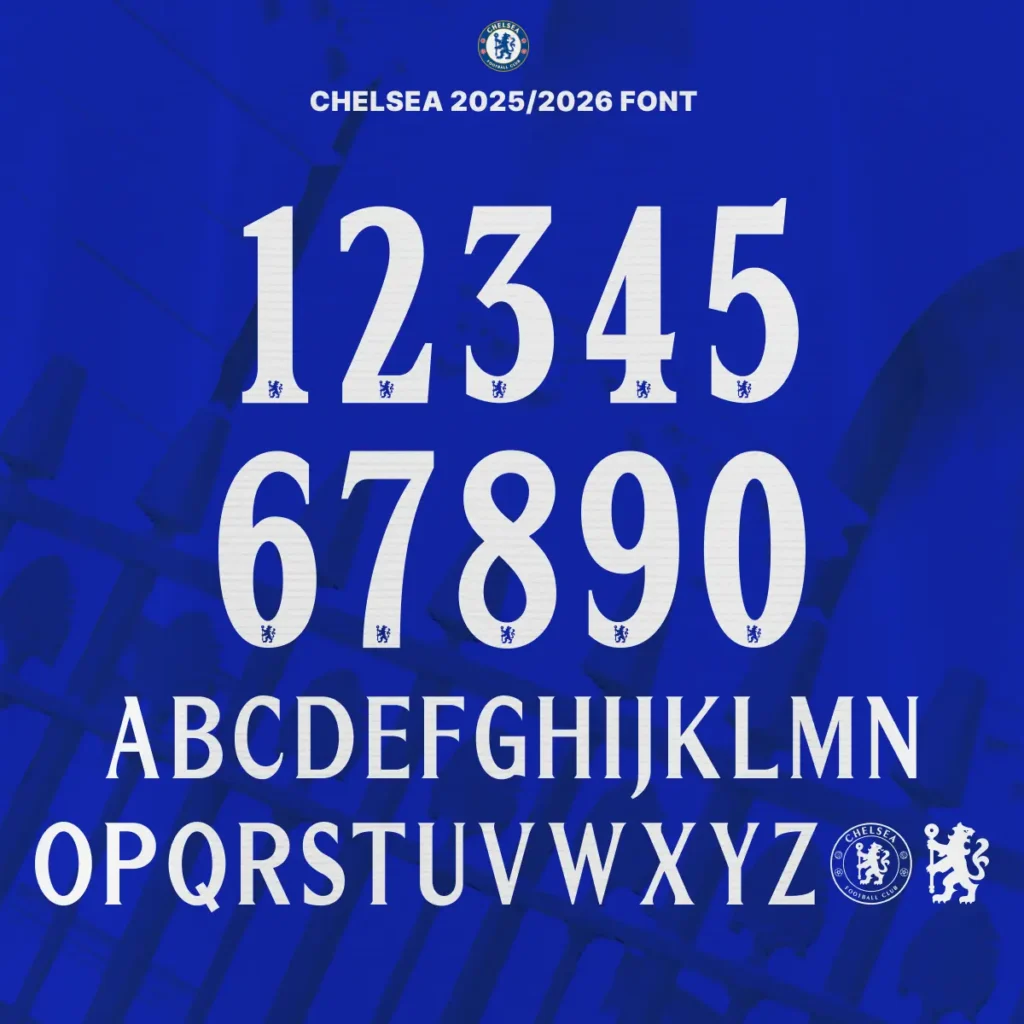
Chelsea Football Club, the reigning FIFA Club World Cup 2025 champion, proudly unveils its official font for the 2025/2026 season. Designed for both performance and aesthetic appeal, this font captures the heritage and strength of the Blues while delivering professional-grade versatility for creators and fans alike.
✨ Key Features of the Chelsea 2025/2026 Font Kit
- Real-World Use by Chelsea:
🏆 Used in the historic final against PSG at the FIFA Club World Cup 2025.
🔁 Use ligatures, kerning, and logo alternates effortlessly.
- Precision Logos Included:
🦁 Get two official Chelsea FC logos with perfect details.
- Multilingual Alphabet Support:
🌍 Includes accented characters for European and international use.
- Optimized for Fan Merchandise:
👕 Perfect for jersey designs, posters, and club-themed merch.
Chelsea triumphed over Paris Saint-Germain (PSG) in a legendary final at the FIFA Club World Cup 2025, marking a glorious milestone in the club’s modern history. This font was prominently featured on the kits worn during that victorious night, forever linking it with Chelsea’s international dominance.
🔤 Multilingual Compatibility for Global Fans
Whether you’re designing in French, German, or Spanish, this font includes all essential characters. The extra multilingual alphabet ensures your designs stay authentic and inclusive.
🎨 Built for Designers, Fans, and Creators
From fan-made posters to custom jersey mockups, this typeface is engineered to be easy to use, brand-consistent, and powerful across formats.